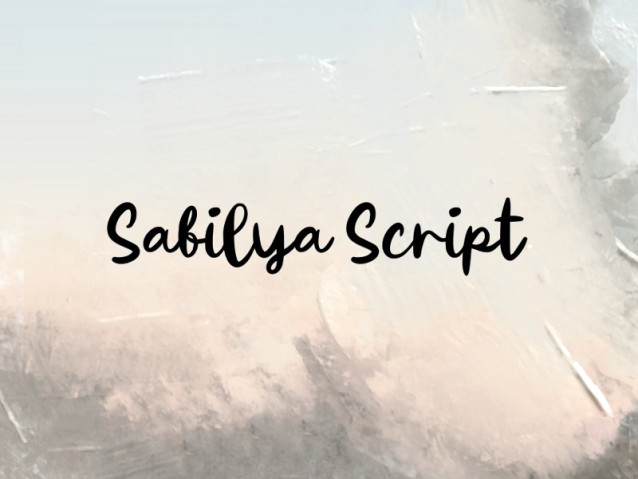
Sabilya Script Font
Sabilya Script Font is a simple and friendly handwritten font. Its natural and unique style makes it incredibly fitting to a large pool of designs. The only limit is your imagination!